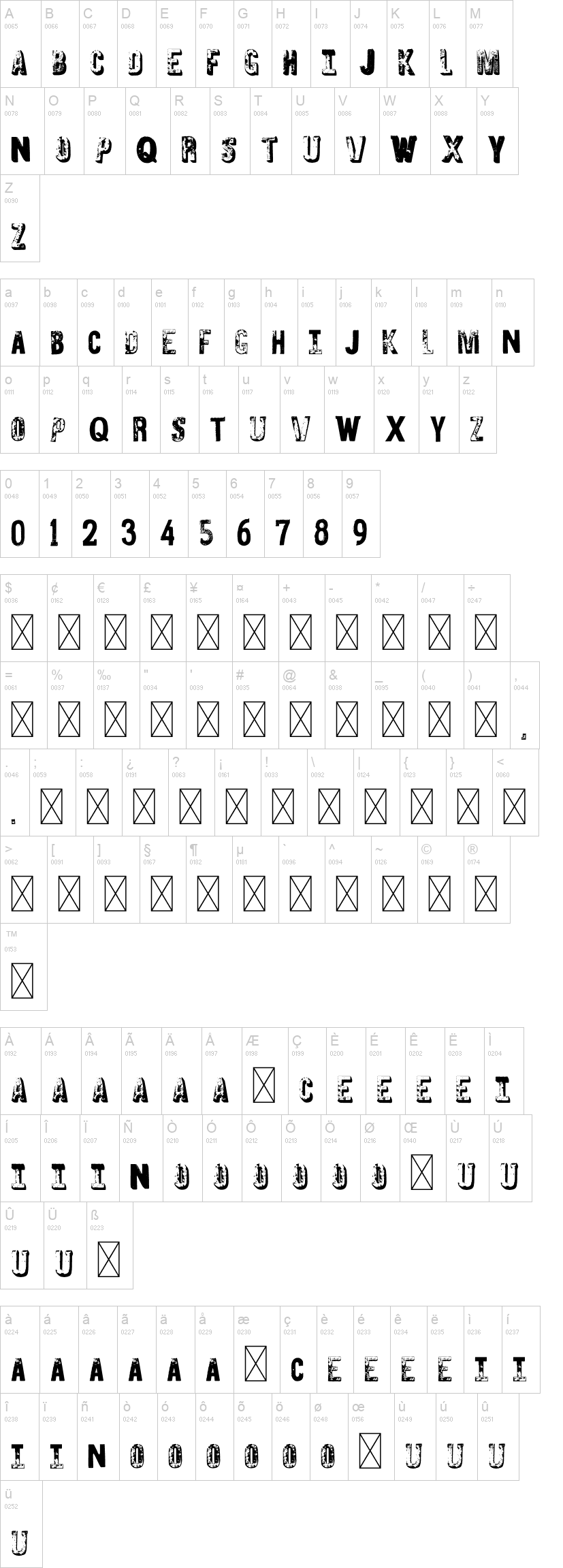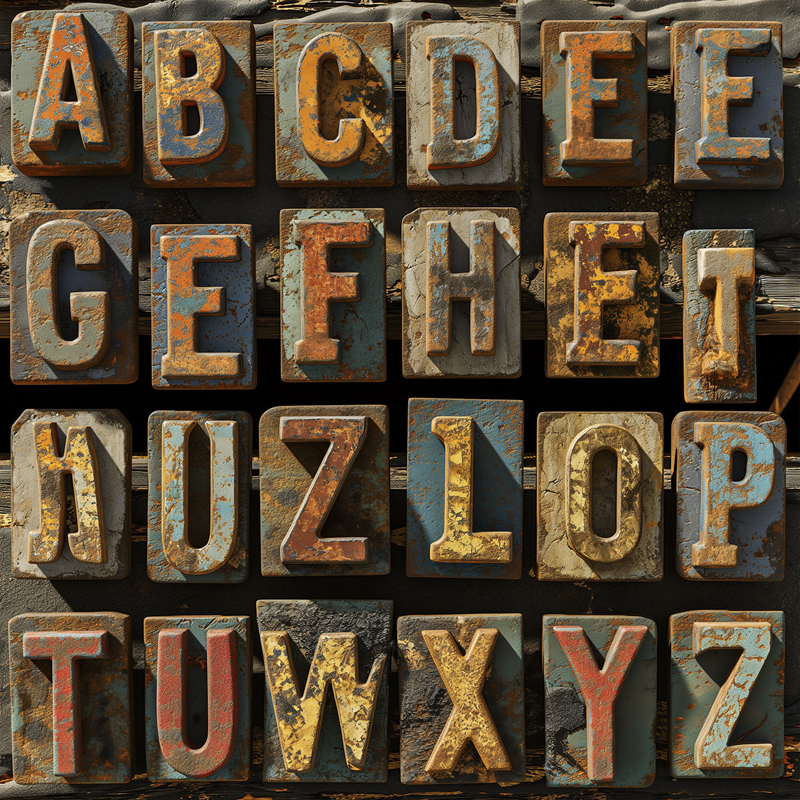
"Seven And Storm" is a vintage font based on old lettering mounted on rusty wooden boards and/or metal plates.
The real interest and added value of this font comes from its SVG version (already in color and fully embossed).